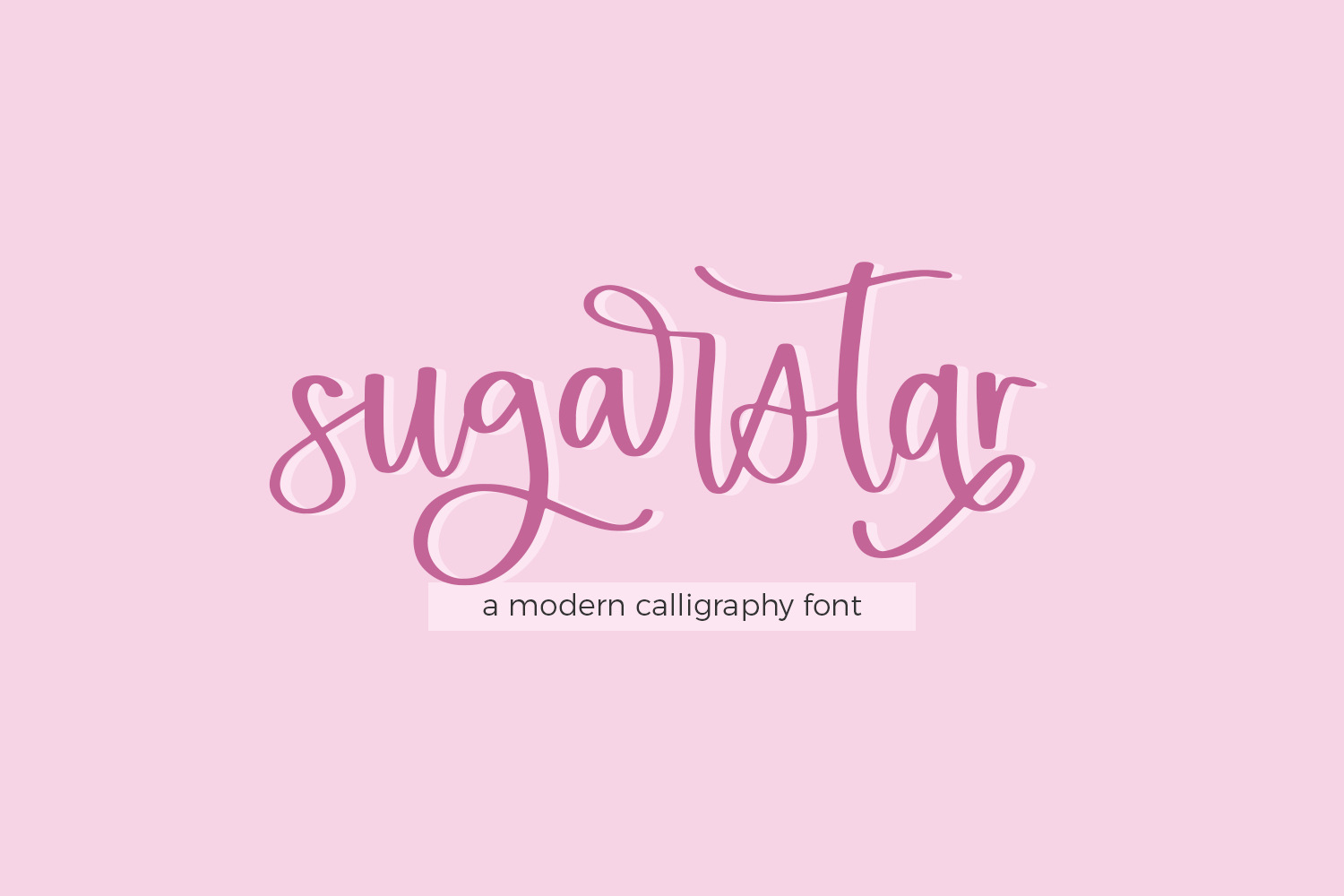
Introducing Sugarstar, a modern calligraphy font with alternates and ligatures. Sugarstar is best for feminine crafty projects or SVG design businesses, farmhouse decor and crafts, logos, branding, marketing materials, social media graphics, or shirt design.
Sugarstar includes:
- upper + lowercase characters A-Z and a-z
- numbers 0-9
- punctuation
- 27 alternates - a (x2), b, c, d, e, f, g, h, i, j, k, l (x2), m, n, o, r, s, t (x2), u, v, w, x, y, z
- 14 ligatures - ars, bb, ers, irs, ll, mm, nn, oo, ors, rr, ss, th, tt, urs